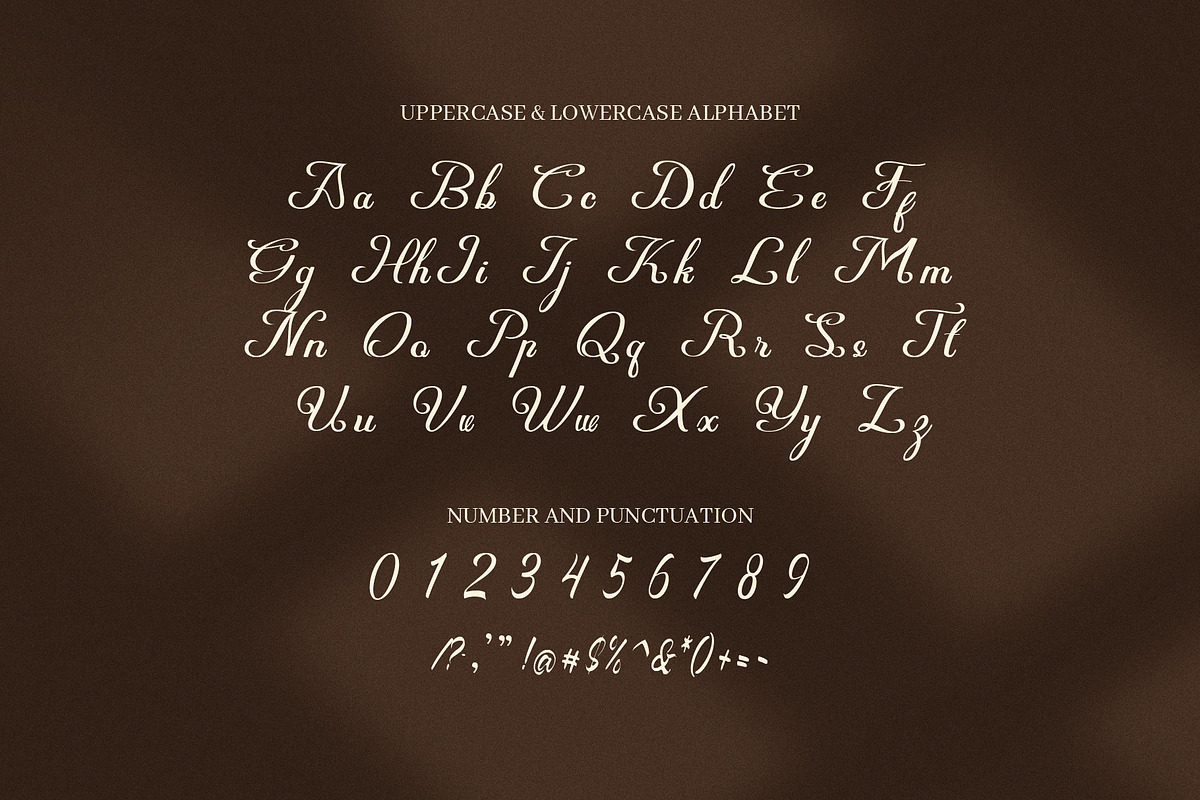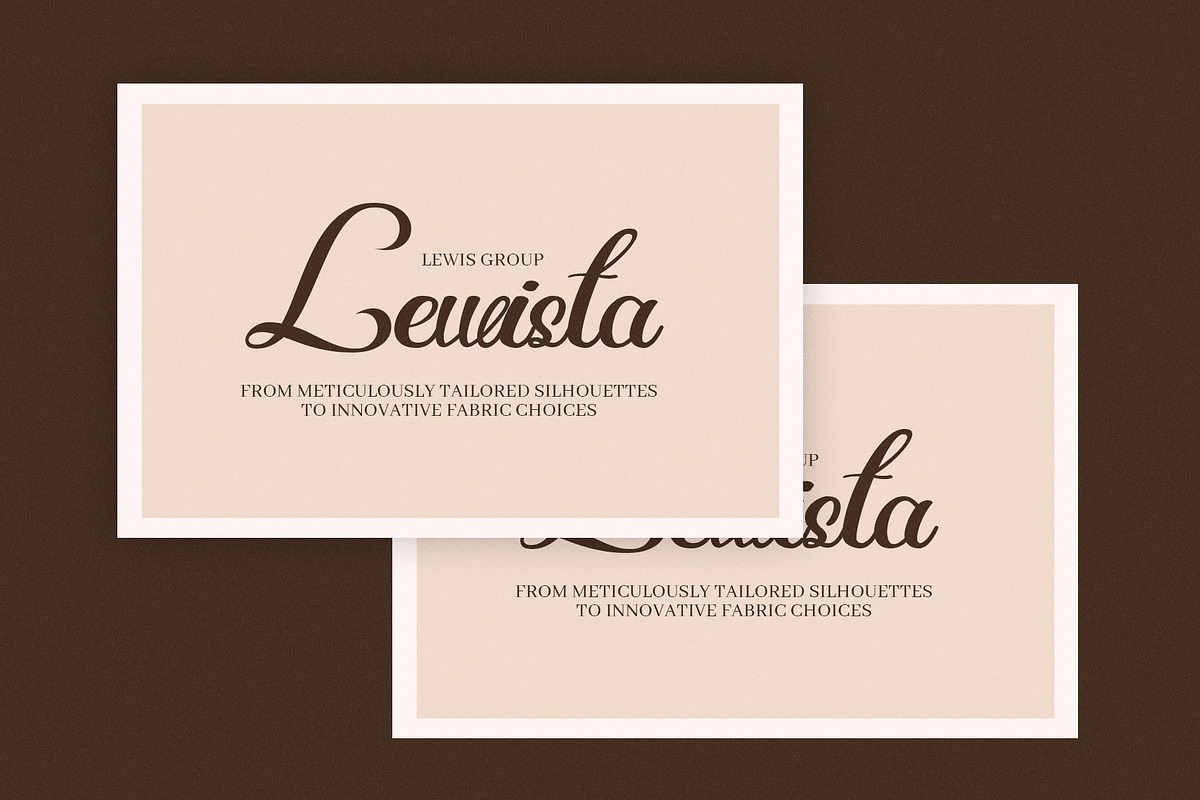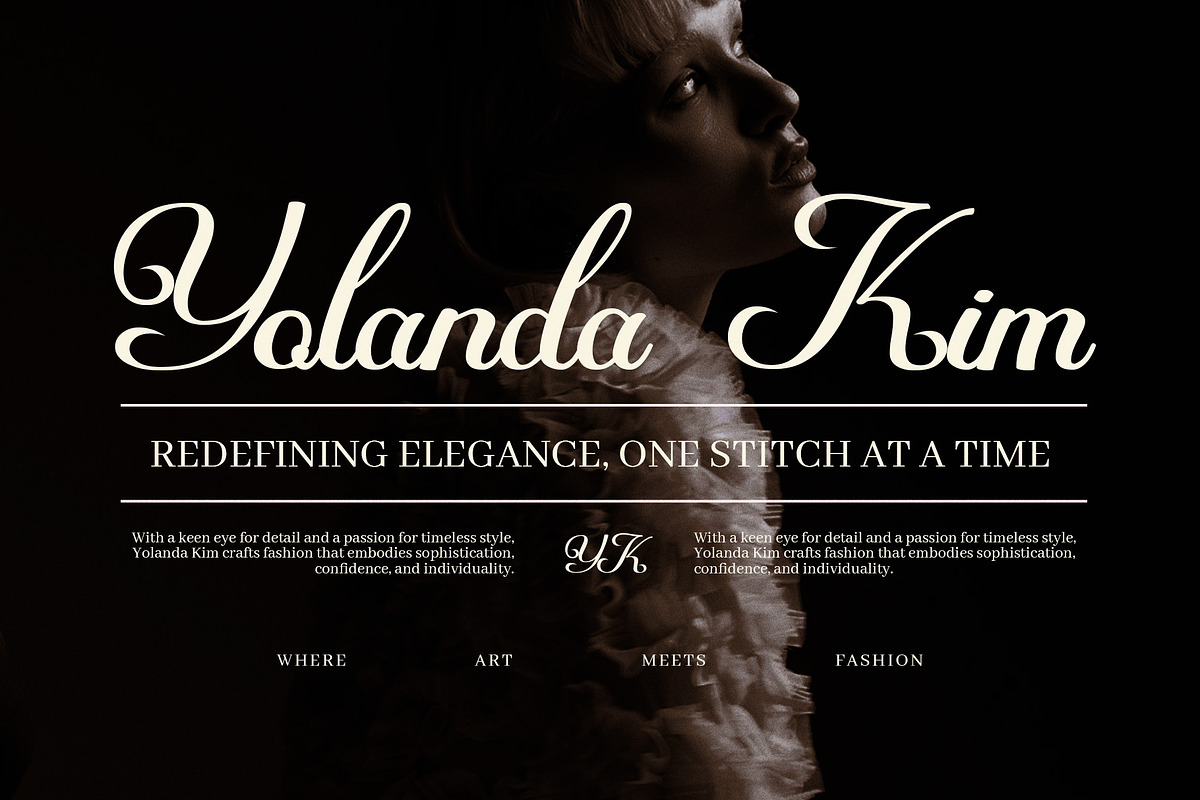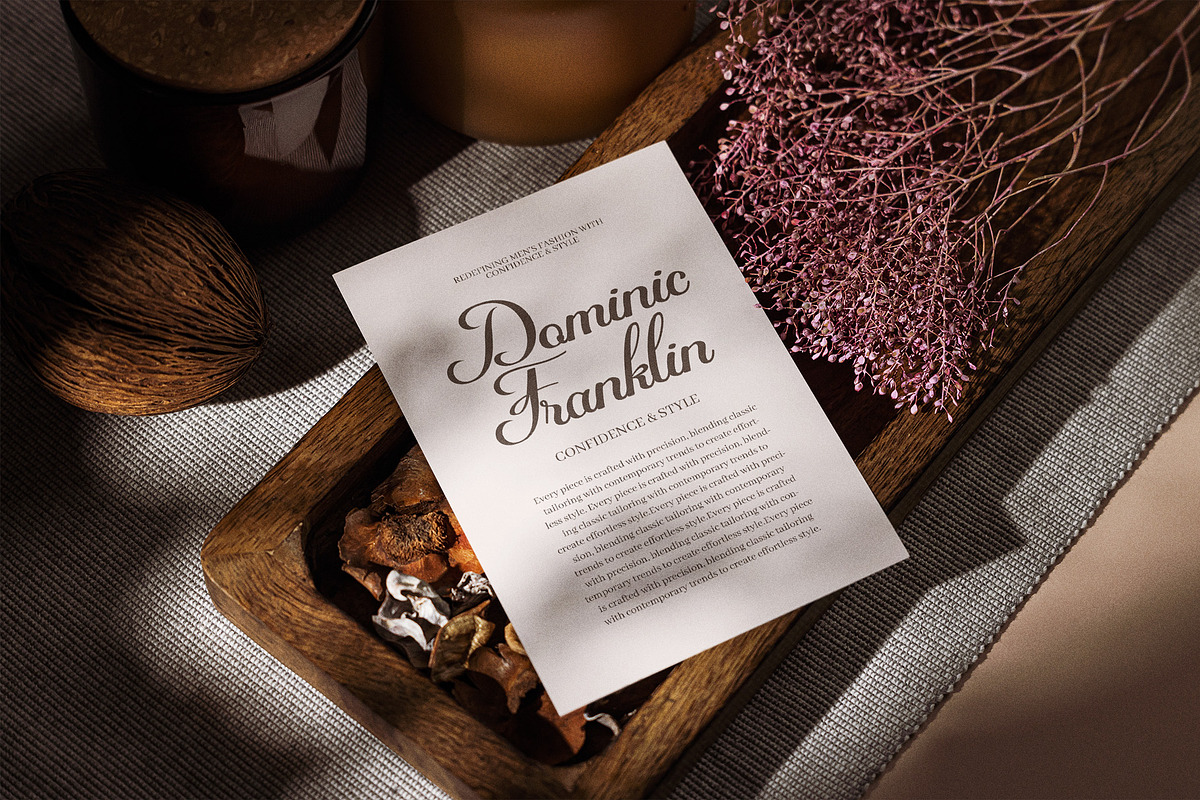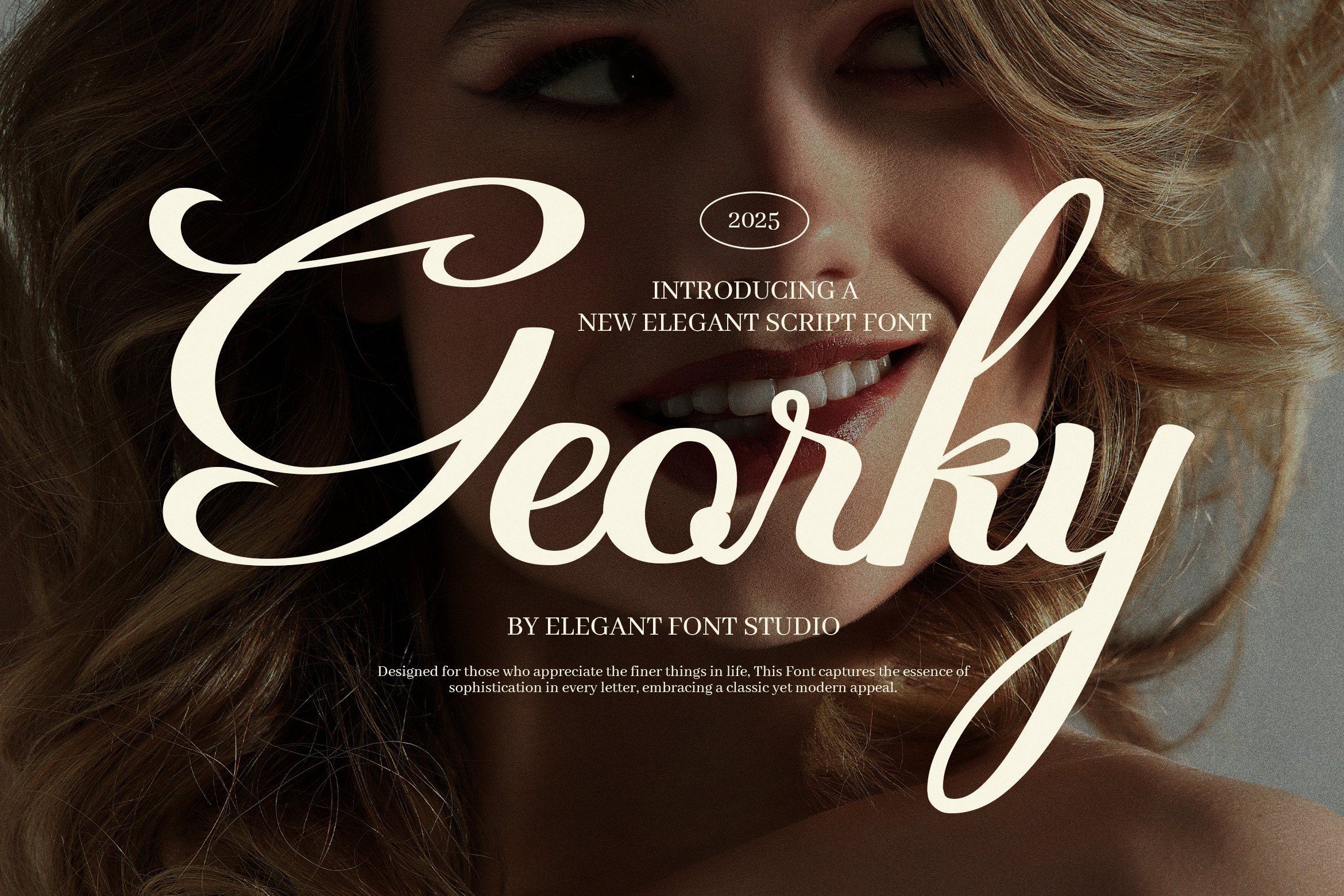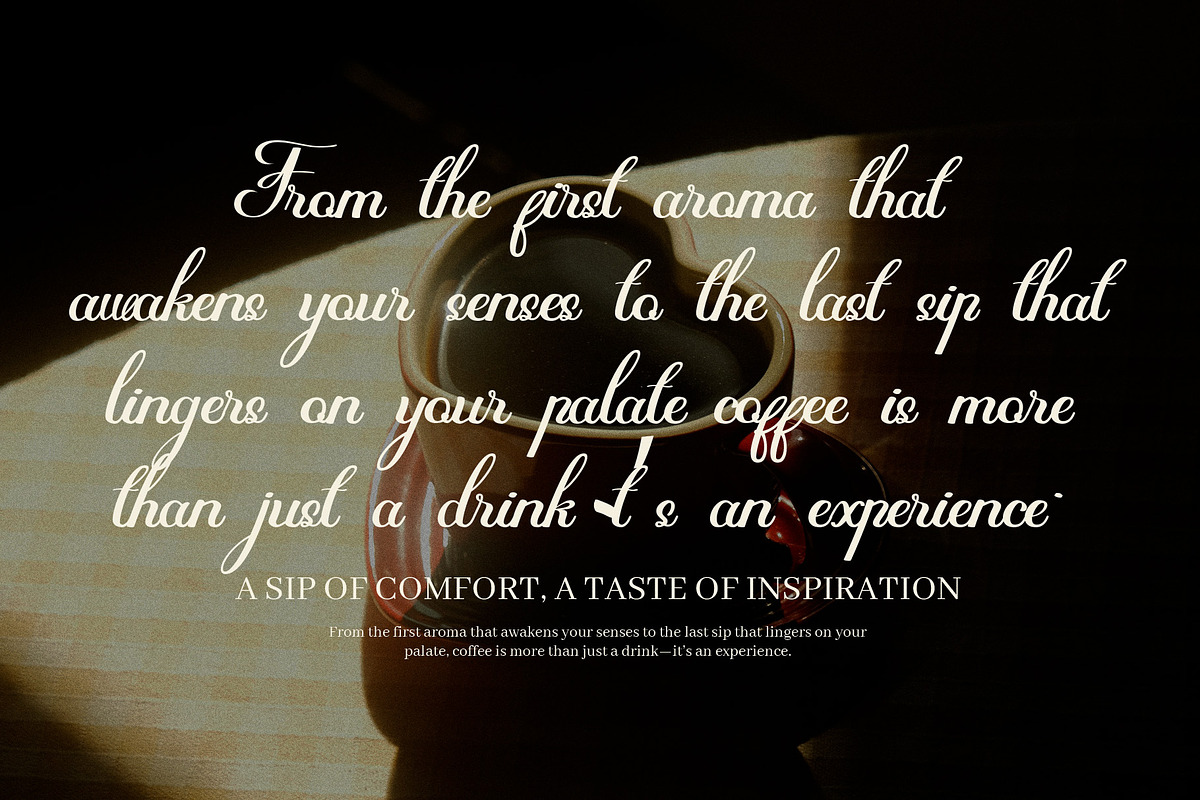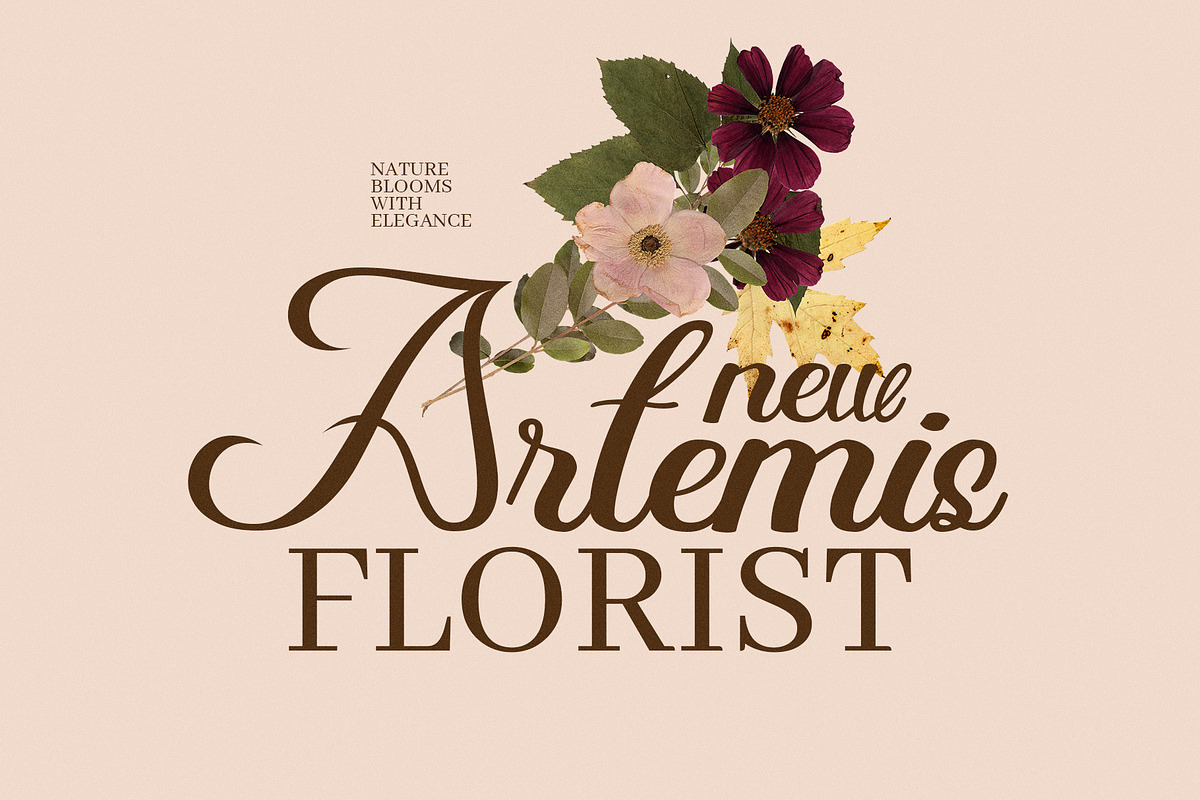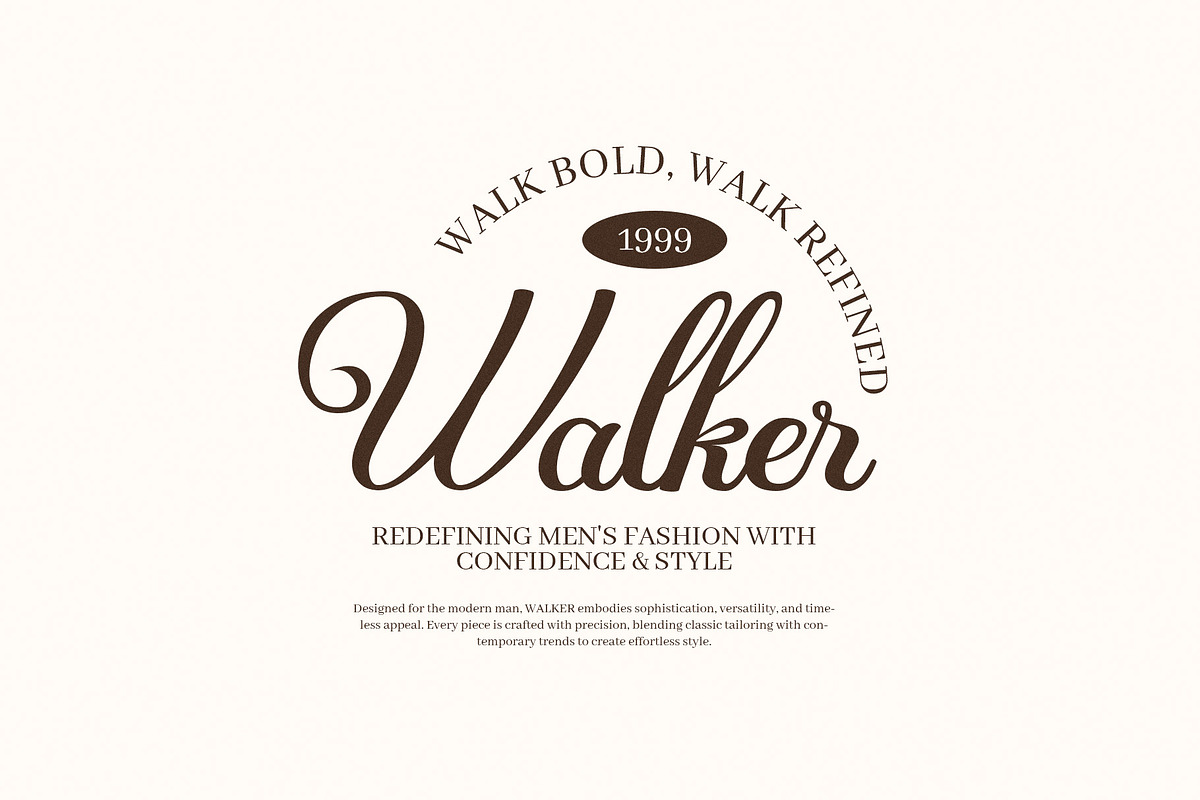
Georky Wedding Script Font
Georky Wedding Script Font is a luxurious and expressive script typeface that radiates elegance, charm, and refined beauty. Meticulously designed to emulate the graceful flow of hand-drawn calligraphy, Georky is the perfect choice for designs that require a romantic, high-end, and polished touch.
With its fluid curves, ornate strokes, and a generous selection of alternate characters and swashes, this font delivers both versatility and sophistication. Each letter has been lovingly crafted to ensure harmony and balance, making your text look naturally beautiful and effortlessly stylish. Whether you're working on an intricate wedding invitation, a chic logo design, or an elegant album cover, Georky brings a timeless elegance to every project.
Georky is especially well-suited for branding, fashion labels, event stationery, magazines, music covers, luxury product packaging, and advertising materials. Its romantic and stylish appeal also makes it an excellent choice for Canva templates, social media graphics, website headers, personal monograms, and business cards.
Georky Wedding Script Font is not just a typeface—it’s a creative tool that helps you express emotion, personality, and class. Whether you're telling a love story through wedding stationery or building a brand that reflects beauty and grace, this font adds the perfect finishing touch.